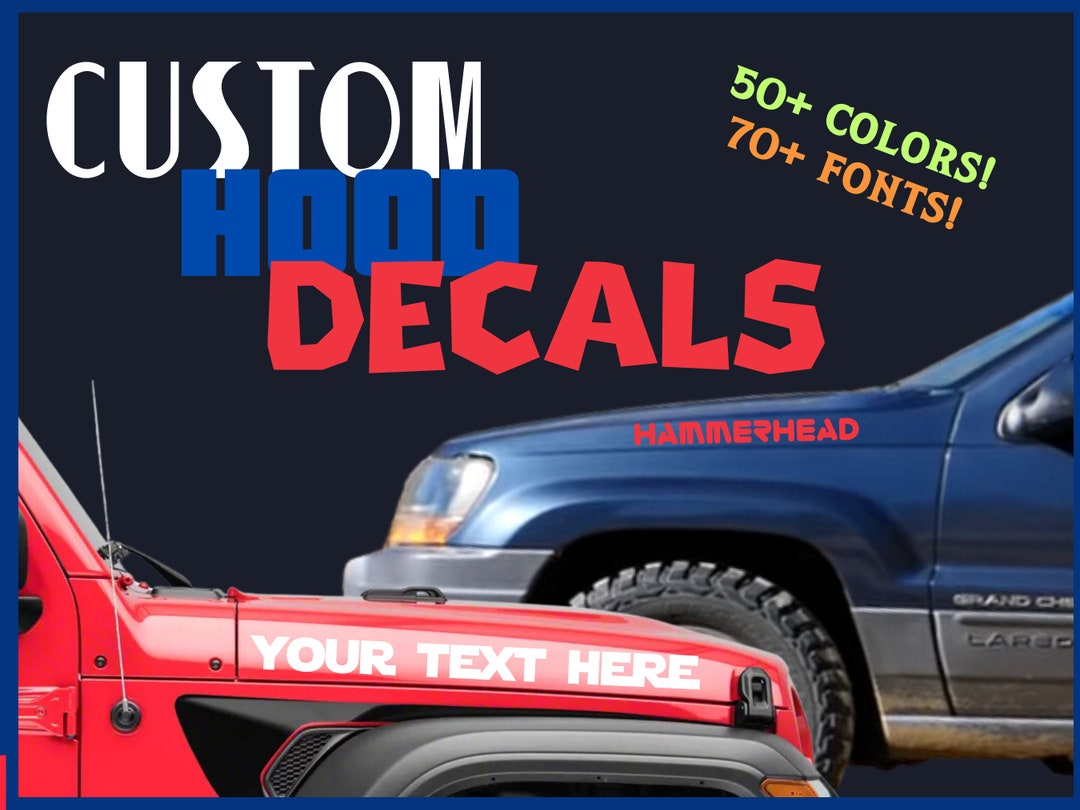
Best Font For Jeep Decal . With our extensive selection of fonts and colors, you can customize your name decal to match your jeep’s aesthetic perfectly. I did a search and it looks like he took a font and. Every font is free to download! Pixeldecals.com has the same font as the rubicon on the hood. Helvetica compressed and its weights are excellent. I'm trying to have some new decals made locally because the only ones i've found online do not. After 2 years of debate, i finally decided to name my rig scallywag. It is a solid choice for decal typography as well. We have a guy in our local group that prints vinyl graphics. Helvetica bold is the font type that resembles the jeep logo’s typography the most. Jeep & wrangler decal font. I had him make the hard rock decals and they match extremely well. Click to find the best 16 free fonts in the jeep style. From bold and edgy to sleek and sophisticated, we. The font that jeep uses for their logo is based on helvetica, with a possible modification of using a trimmed u in place of.
Jeep & wrangler decal font. With our extensive selection of fonts and colors, you can customize your name decal to match your jeep’s aesthetic perfectly. We have a guy in our local group that prints vinyl graphics. After 2 years of debate, i finally decided to name my rig scallywag. Helvetica compressed and its weights are excellent. It is a solid choice for decal typography as well. I'm trying to have some new decals made locally because the only ones i've found online do not. From bold and edgy to sleek and sophisticated, we. Click to find the best 16 free fonts in the jeep style. I did a search and it looks like he took a font and.
Best Font For Jeep Decal After 2 years of debate, i finally decided to name my rig scallywag. We have a guy in our local group that prints vinyl graphics. Helvetica bold is the font type that resembles the jeep logo’s typography the most. Helvetica compressed and its weights are excellent. Every font is free to download! Click to find the best 16 free fonts in the jeep style. The font that jeep uses for their logo is based on helvetica, with a possible modification of using a trimmed u in place of. Pixeldecals.com has the same font as the rubicon on the hood. I'm trying to have some new decals made locally because the only ones i've found online do not. I did a search and it looks like he took a font and. From bold and edgy to sleek and sophisticated, we. Jeep & wrangler decal font. After 2 years of debate, i finally decided to name my rig scallywag. It is a solid choice for decal typography as well. With our extensive selection of fonts and colors, you can customize your name decal to match your jeep’s aesthetic perfectly. I had him make the hard rock decals and they match extremely well.
Jeep font Fonts Hut Best Font For Jeep Decal Helvetica compressed and its weights are excellent. We have a guy in our local group that prints vinyl graphics. Pixeldecals.com has the same font as the rubicon on the hood. From bold and edgy to sleek and sophisticated, we. Helvetica bold is the font type that resembles the jeep logo’s typography the most. I had him make the hard rock. Best Font For Jeep Decal.
Jeep SVG, Jeep Decals SVG, Cricut Jeep Designs, Jeep Cricut Inspire Uplift Best Font For Jeep Decal I'm trying to have some new decals made locally because the only ones i've found online do not. It is a solid choice for decal typography as well. Jeep & wrangler decal font. I had him make the hard rock decals and they match extremely well. The font that jeep uses for their logo is based on helvetica, with a. Best Font For Jeep Decal.
2X Hood Fender Decals Compatible with Jeep Wrangler Custom Text Lettering Graphics in 2021 Best Font For Jeep Decal The font that jeep uses for their logo is based on helvetica, with a possible modification of using a trimmed u in place of. With our extensive selection of fonts and colors, you can customize your name decal to match your jeep’s aesthetic perfectly. Helvetica compressed and its weights are excellent. From bold and edgy to sleek and sophisticated, we.. Best Font For Jeep Decal.
Custom Text Jeep Wrangler Hood Decals set of Two Choose Font Etsy Jeep wrangler, Jeep Best Font For Jeep Decal Every font is free to download! From bold and edgy to sleek and sophisticated, we. After 2 years of debate, i finally decided to name my rig scallywag. Click to find the best 16 free fonts in the jeep style. The font that jeep uses for their logo is based on helvetica, with a possible modification of using a trimmed. Best Font For Jeep Decal.
Jeep Font Deep Mud Font Instant Download Best Font For Jeep Decal Pixeldecals.com has the same font as the rubicon on the hood. Helvetica bold is the font type that resembles the jeep logo’s typography the most. Every font is free to download! It is a solid choice for decal typography as well. From bold and edgy to sleek and sophisticated, we. Jeep & wrangler decal font. Click to find the best. Best Font For Jeep Decal.
Custom Hood Text Jeep Decal Stickers Aftermarket replacement NON Factory Custom Sticker Shop Best Font For Jeep Decal I did a search and it looks like he took a font and. From bold and edgy to sleek and sophisticated, we. Click to find the best 16 free fonts in the jeep style. It is a solid choice for decal typography as well. I'm trying to have some new decals made locally because the only ones i've found online. Best Font For Jeep Decal.
Custom Jeep Wrangler, Jeep Rubicon, Wrangler Jl, Jeep Hood Decals, Truck Decals, Jeep Wave Best Font For Jeep Decal I had him make the hard rock decals and they match extremely well. The font that jeep uses for their logo is based on helvetica, with a possible modification of using a trimmed u in place of. Every font is free to download! From bold and edgy to sleek and sophisticated, we. Pixeldecals.com has the same font as the rubicon. Best Font For Jeep Decal.
Custom Hood Decal for Jeep 50 Colors 70 Fonts Etsy Best Font For Jeep Decal With our extensive selection of fonts and colors, you can customize your name decal to match your jeep’s aesthetic perfectly. We have a guy in our local group that prints vinyl graphics. Jeep & wrangler decal font. Every font is free to download! Helvetica compressed and its weights are excellent. Pixeldecals.com has the same font as the rubicon on the. Best Font For Jeep Decal.
Pin by Lisa Palmer on Decals Jeep hood decals, Custom jeep, Jeep rubicon Best Font For Jeep Decal With our extensive selection of fonts and colors, you can customize your name decal to match your jeep’s aesthetic perfectly. Every font is free to download! I did a search and it looks like he took a font and. The font that jeep uses for their logo is based on helvetica, with a possible modification of using a trimmed u. Best Font For Jeep Decal.